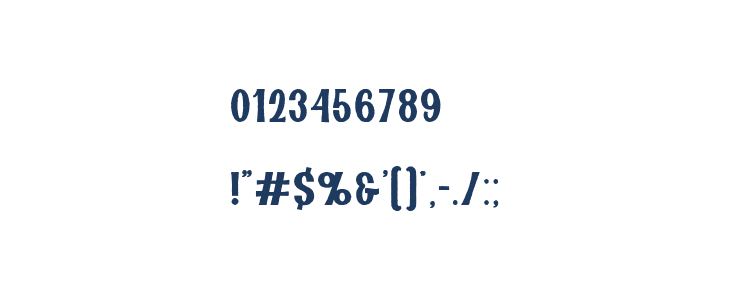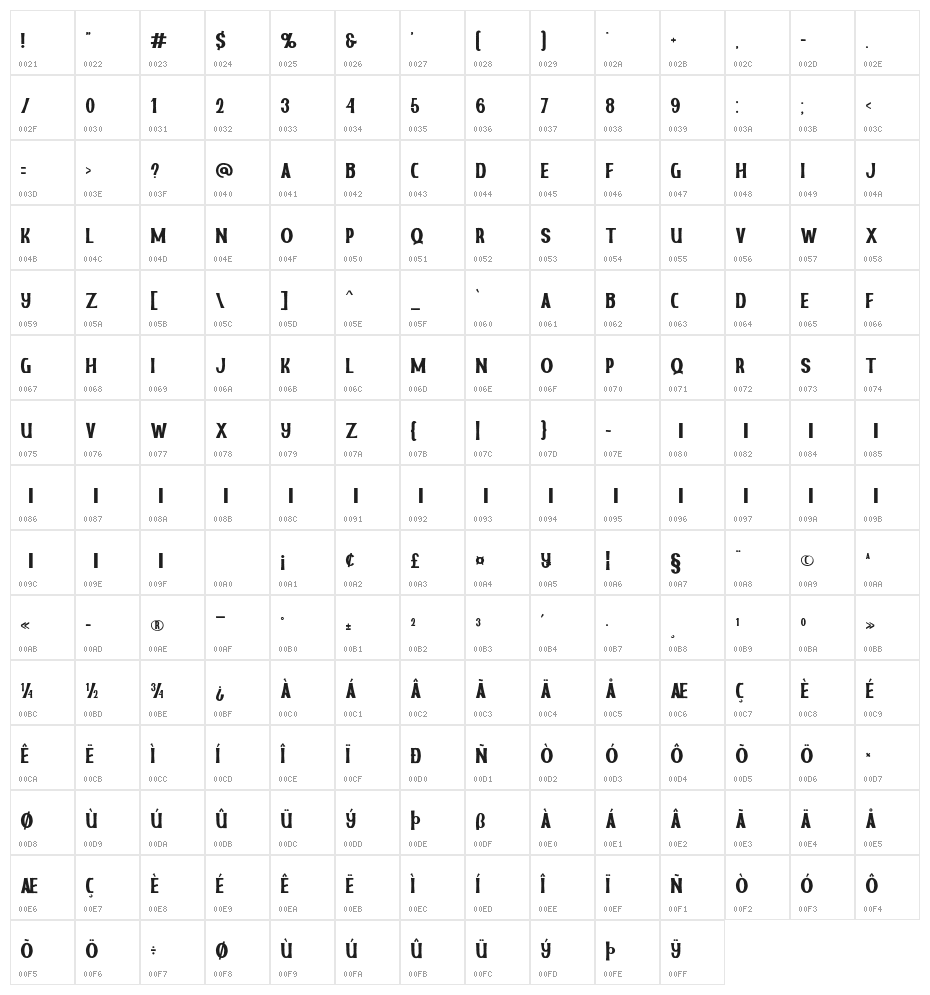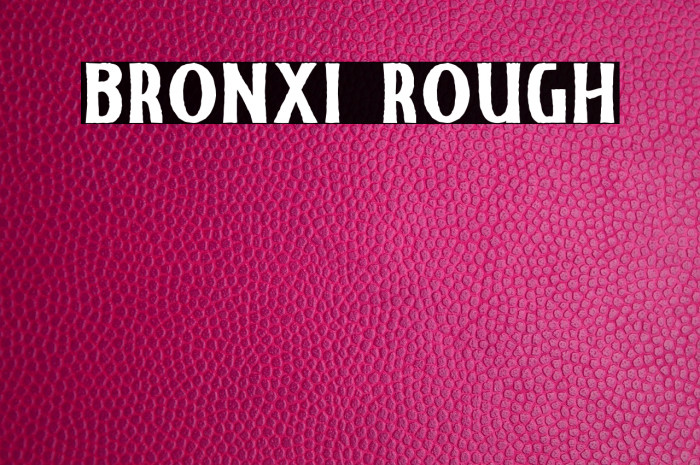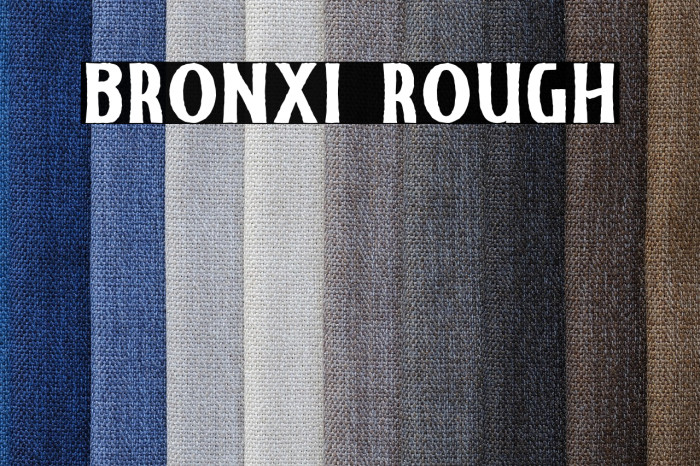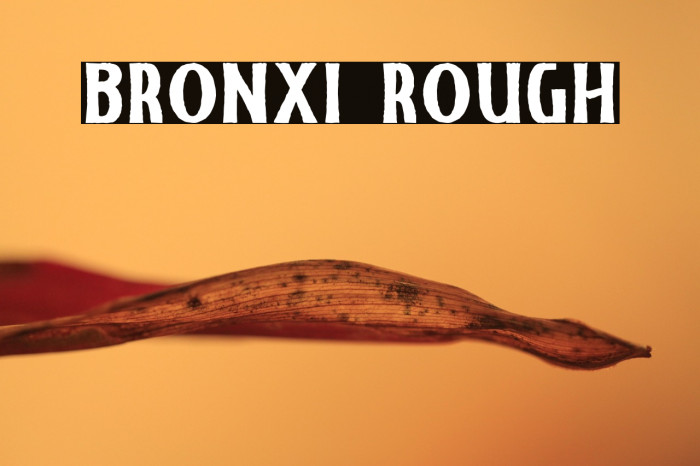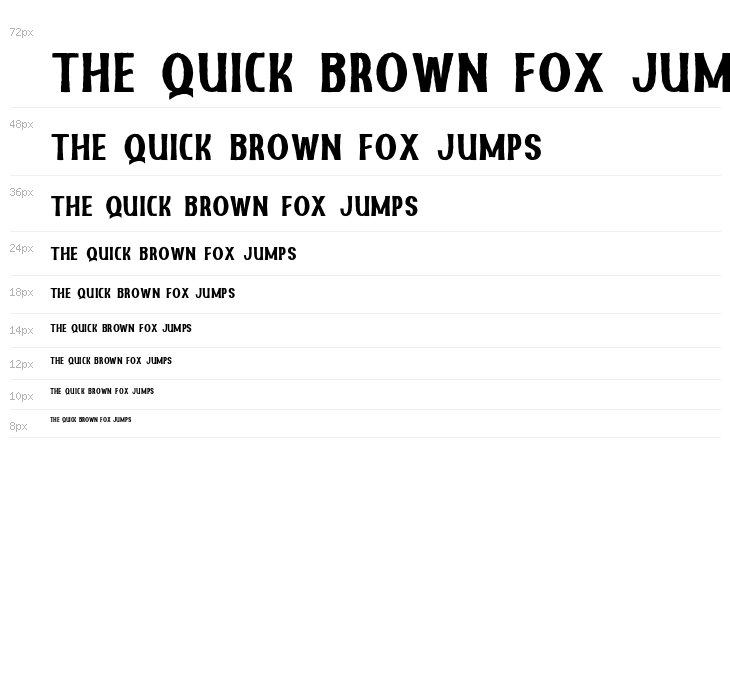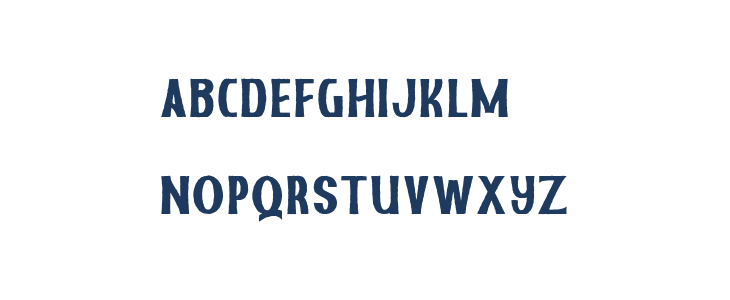
Bronxi Rough Font
Bronxi Rough Description
This font features a bold and rugged style with a distinctly rough texture, giving it a hand-crafted appearance. The uppercase letters are prominent and slightly condensed, with unique serifs that add character and flair. The numbers and special characters maintain the same boldness and rough texture, ensuring consistency across all characters. The font's design suggests a vintage or rustic feel, making it ideal for projects that require a touch of authenticity and personality. Its rough edges and bold strokes make it stand out, perfect for eye-catching designs.
| Overall Style | Vintage |
| Proposed Projects | Ideal for branding, posters, packaging, and any design requiring a rustic or vintage touch. |